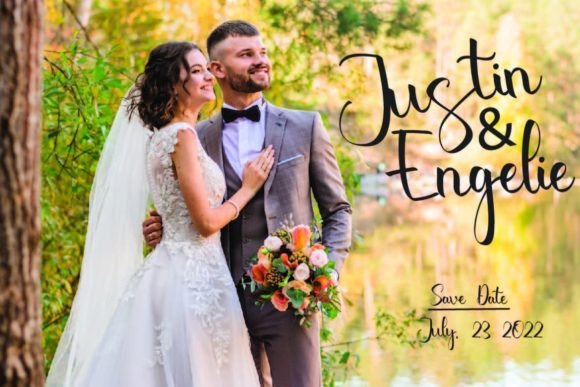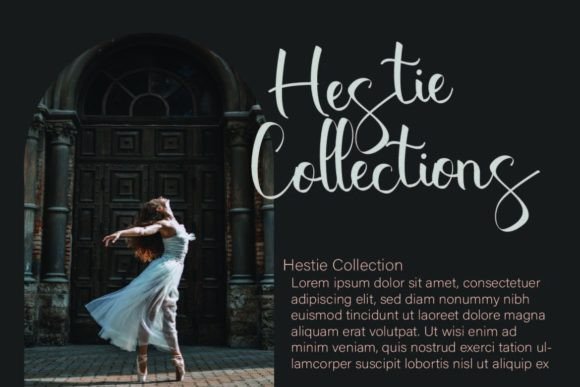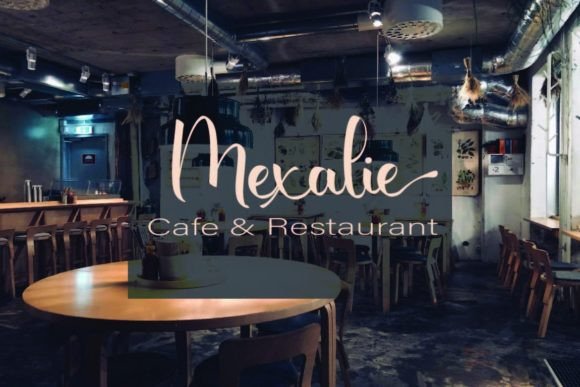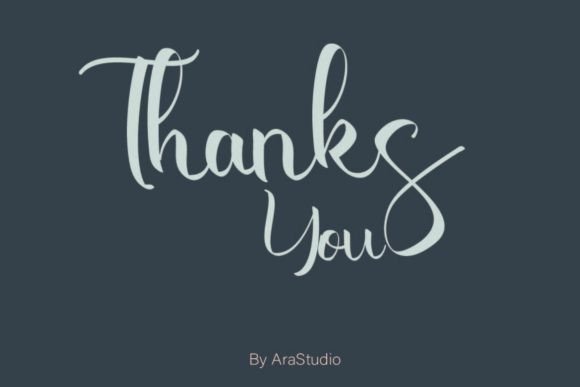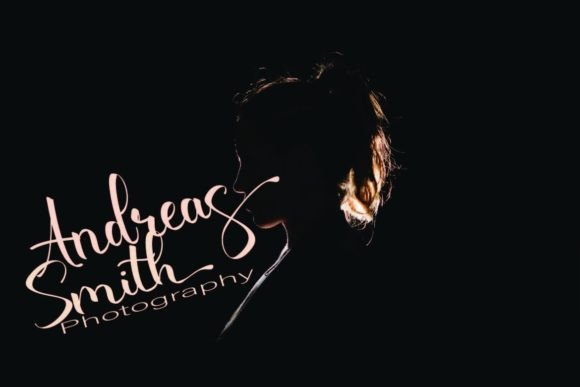
Chendrawasih Font
About Chendrawasih Font
“Chendrawasih is a beautifully crafted handwritten font that exudes an aesthetic charm. Its versatile nature makes it a perfect choice for various design applications, seamlessly transitioning between web and print mediums. Whether you’re working on stationery, packaging, apparel designs, wedding stationery, quotes, social media graphics, planners, greeting cards, logos, branding, or any creative project, Chendrawasih adds a touch of elegance that enhances the visual appeal of your designs.
What makes Chendrawasih truly special is its ability to bring a unique aesthetic touch to any project. The font’s handwritten style conveys a sense of authenticity and creativity, making your text visually engaging and relatable. Its smooth and graceful characters create a harmonious flow, ensuring readability while adding a delightful visual rhythm to your designs.
Chendrawasih’s versatility knows no bounds. Its compatibility with a wide range of design projects makes it a valuable asset for designers and creatives. Whether you’re designing eye-catching social media graphics that capture attention or crafting elegant wedding invitations that evoke romance, Chendrawasih adapts effortlessly to your creative vision.
One of the standout features of Chendrawasih is its PUA encoding, providing easy access to all the glyphs and swashes. This feature empowers you to experiment with different typographic elements, allowing you to customize your designs with unique characters and decorative flourishes. Whether you’re enhancing your branding with custom logos or adding intricate details to your stationery designs, Chendrawasih’s PUA encoding simplifies the creative process, enabling you to achieve a polished and professional look.
Incorporating Chendrawasih into your design projects elevates them to new heights. Its aesthetic touch adds a layer of sophistication and creativity, making your creations visually appealing and memorable. Whether you’re a professional designer or an enthusiastic amateur, Chendrawasih inspires creativity and encourages you to explore innovative design possibilities.
In summary, Chendrawasih is more than just a font; it’s a source of artistic inspiration. Its handwritten elegance, combined with its accessibility through PUA encoding, makes it an invaluable addition to any design toolkit. Embrace the beauty of Chendrawasih and let your creativity flourish, crafting visually stunning projects that leave a lasting impression on your audience.”